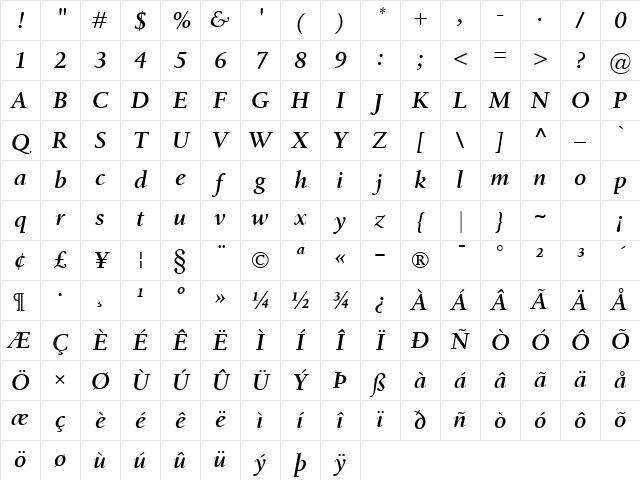
Birka SemiBold Italic Free Font
Birka SemiBold Italic
Design Context for Birka SemiBold
Birka SemiBold is a composed and adaptable typeface that performs quietly and consistently across a wide range of design contexts. The slanted form adds forward momentum and visual energy. Its bold stroke weight gives it real presence on the page.
Pro Tip: Use Birka SemiBold for emphasis, pull quotes, and subheadings where its slanted energy can add rhythm to the layout.